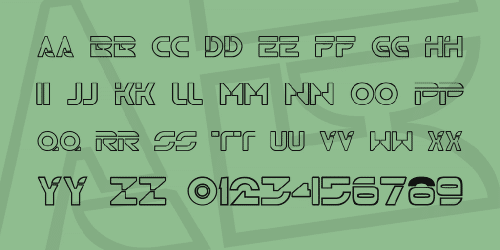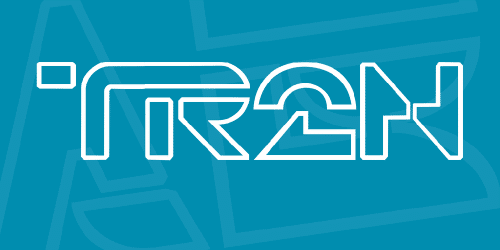
Tr2n Font is a font based upon the poster text for TRON LEGACY. This font only contains capital letters, numbers 0-9 and colon. Additional characters will be added in future updates.
- Designer: Jeff Bell